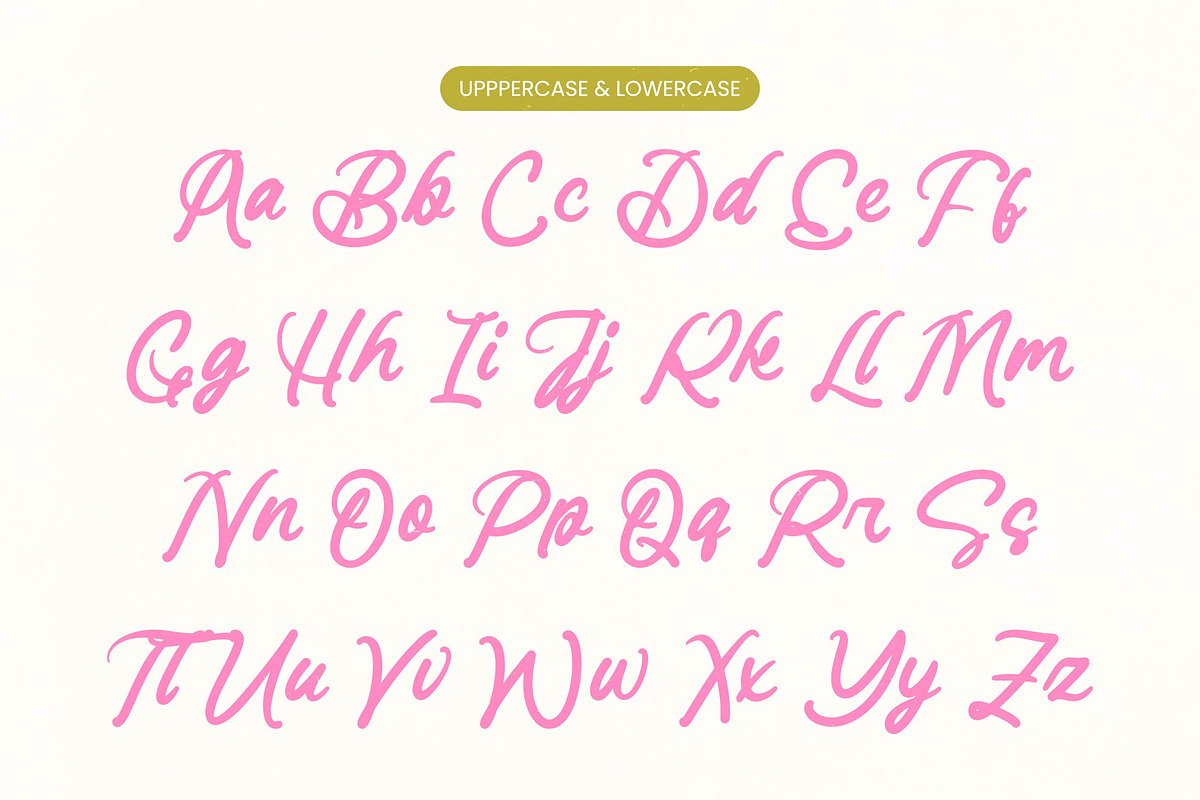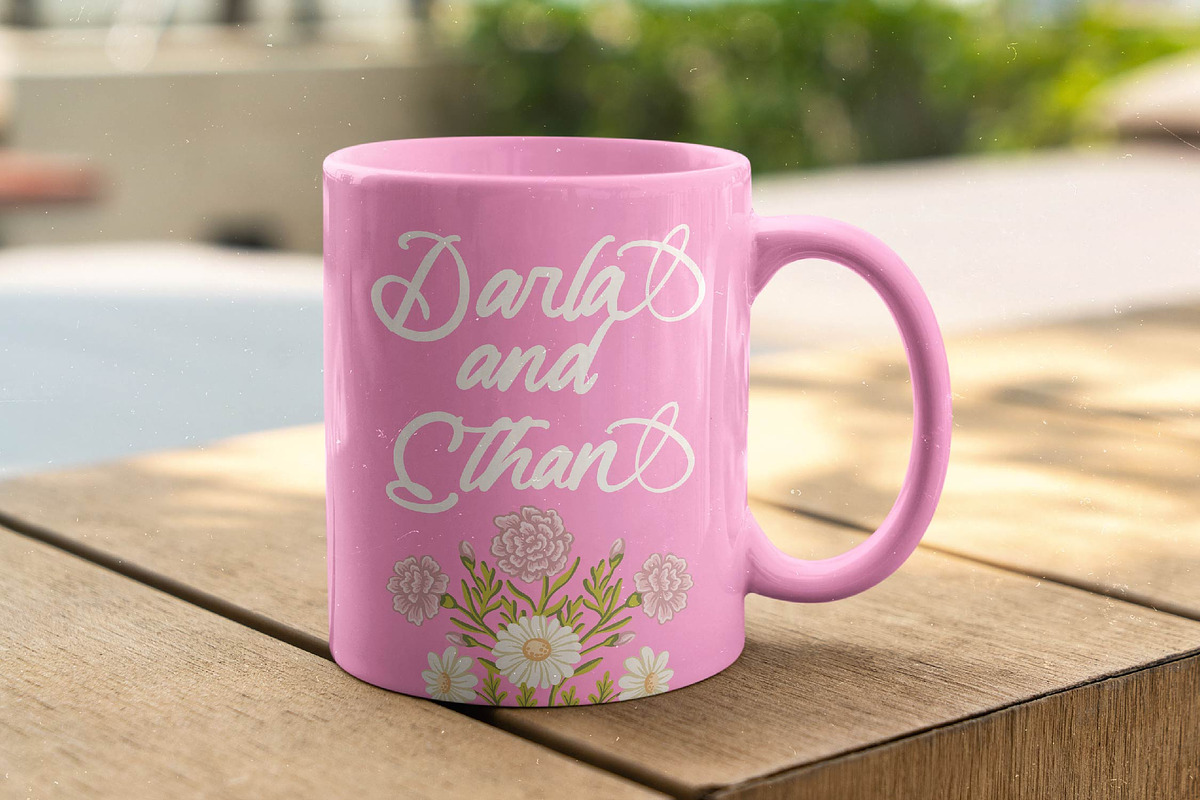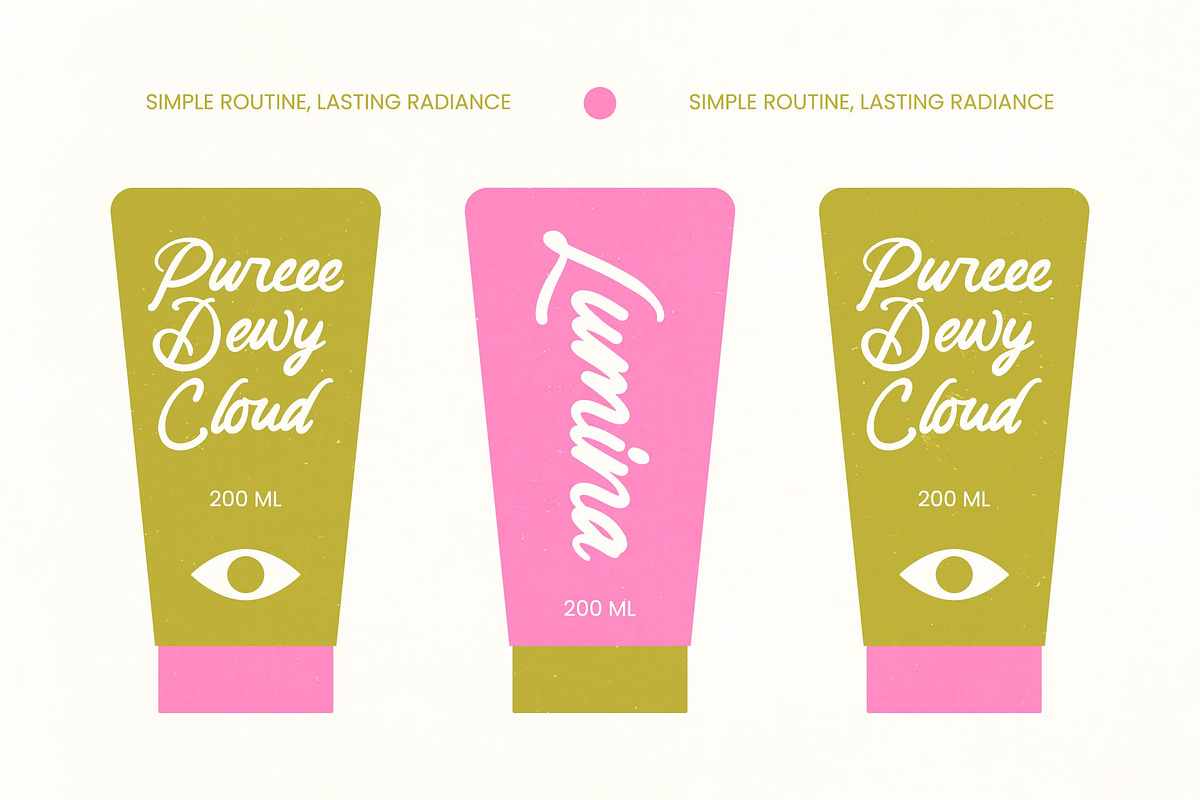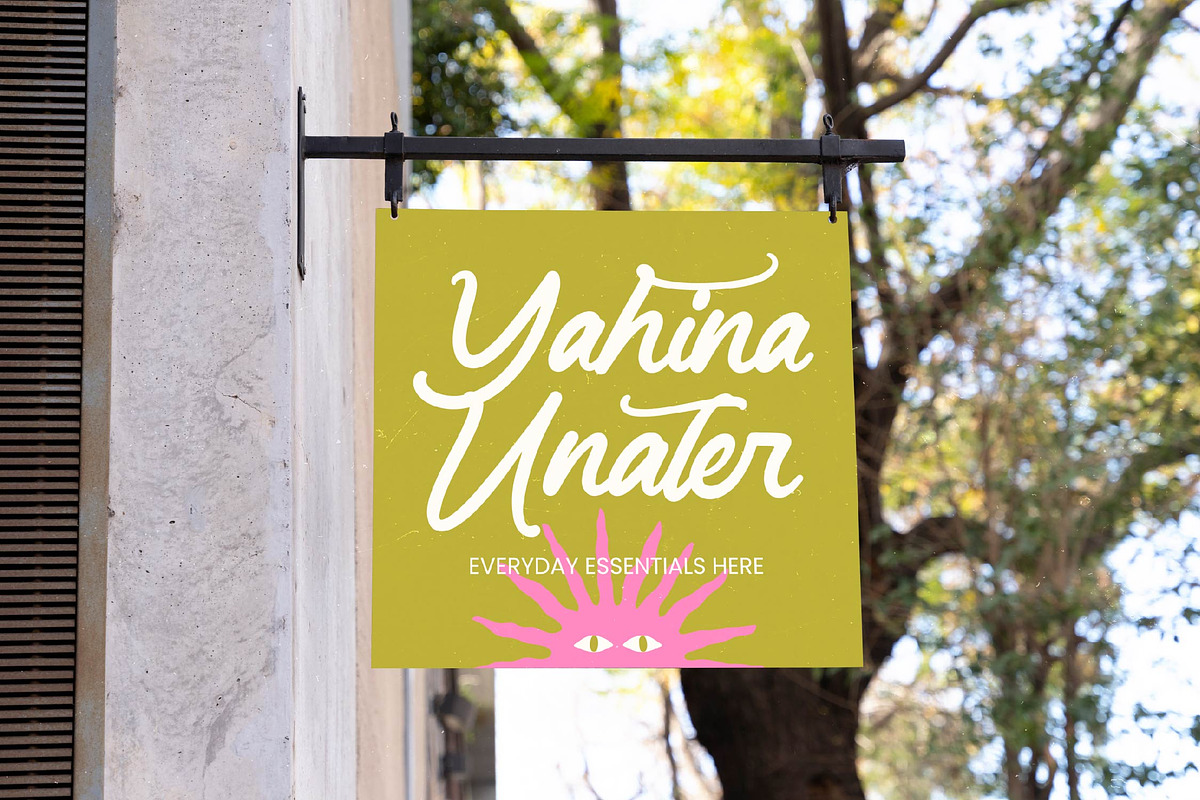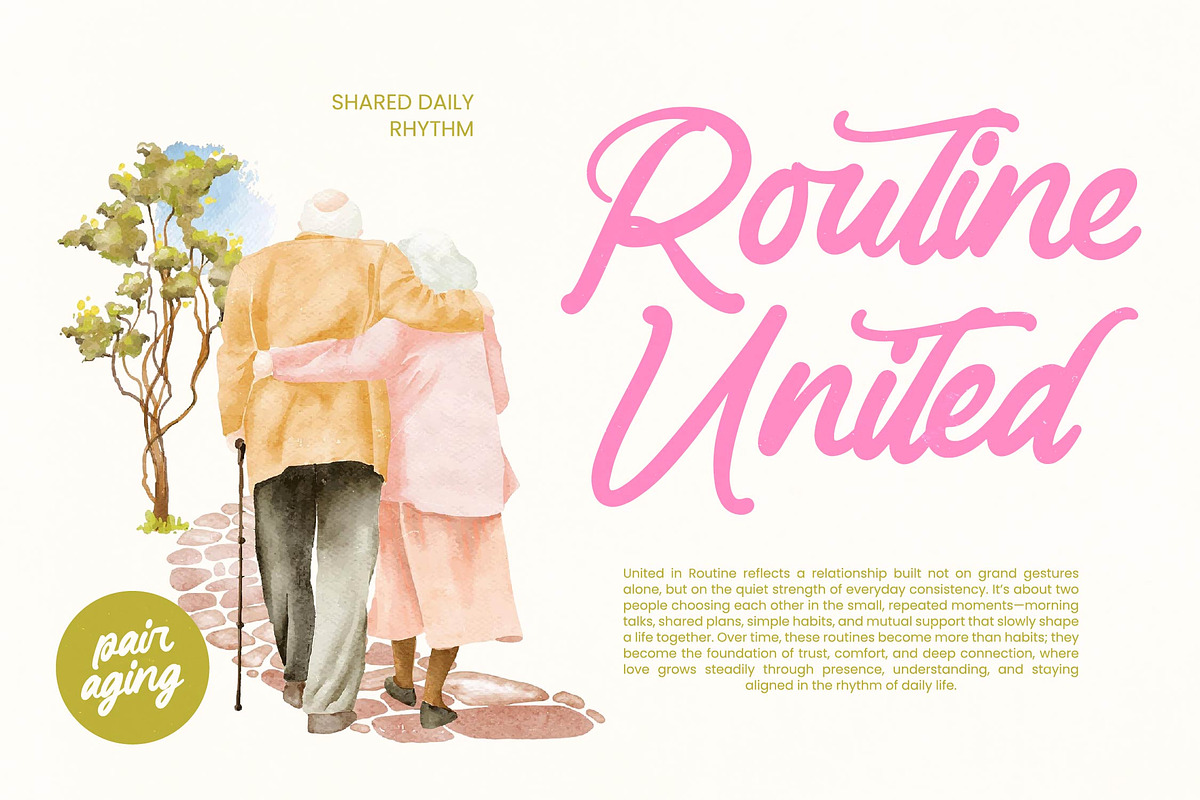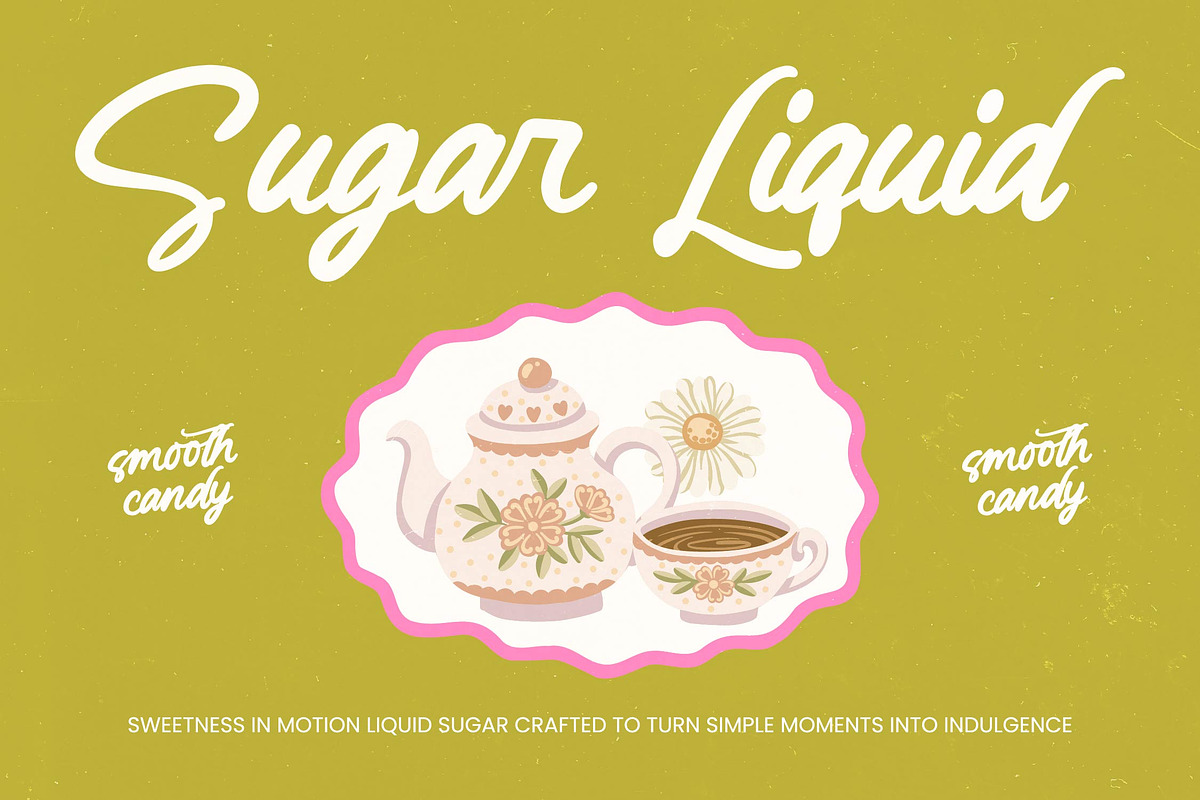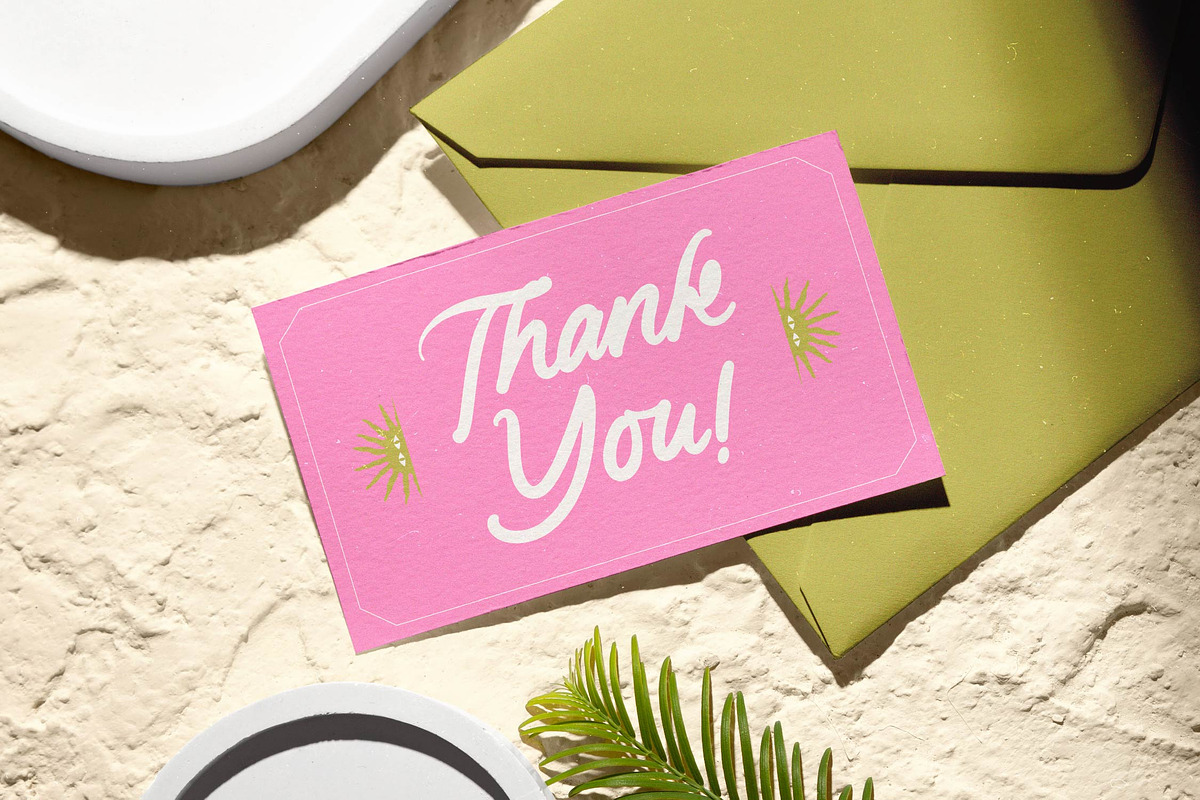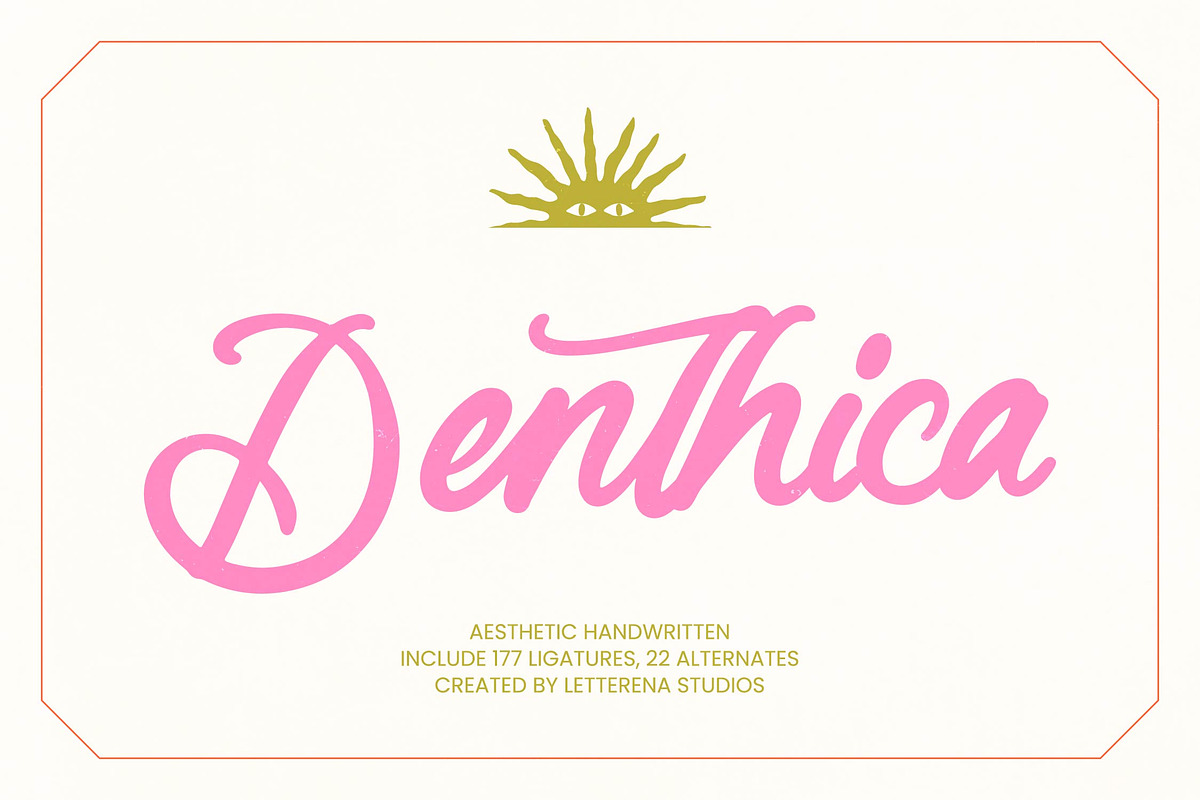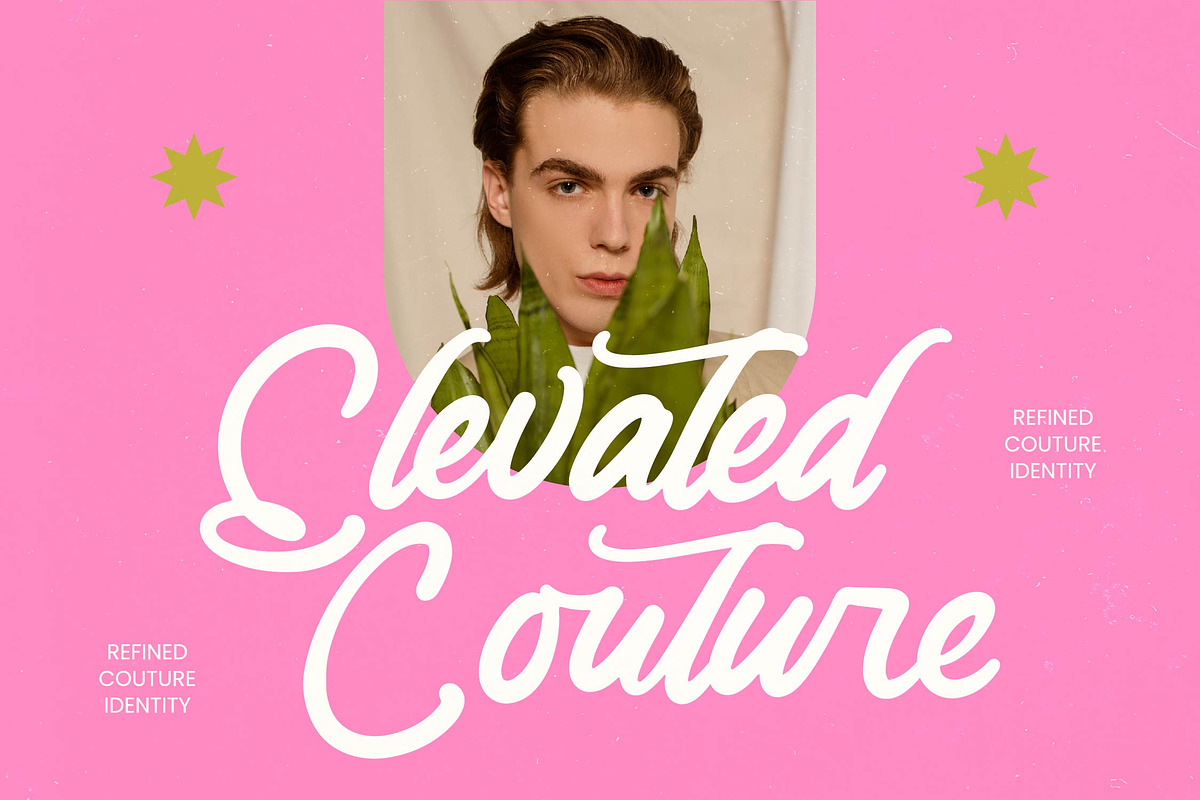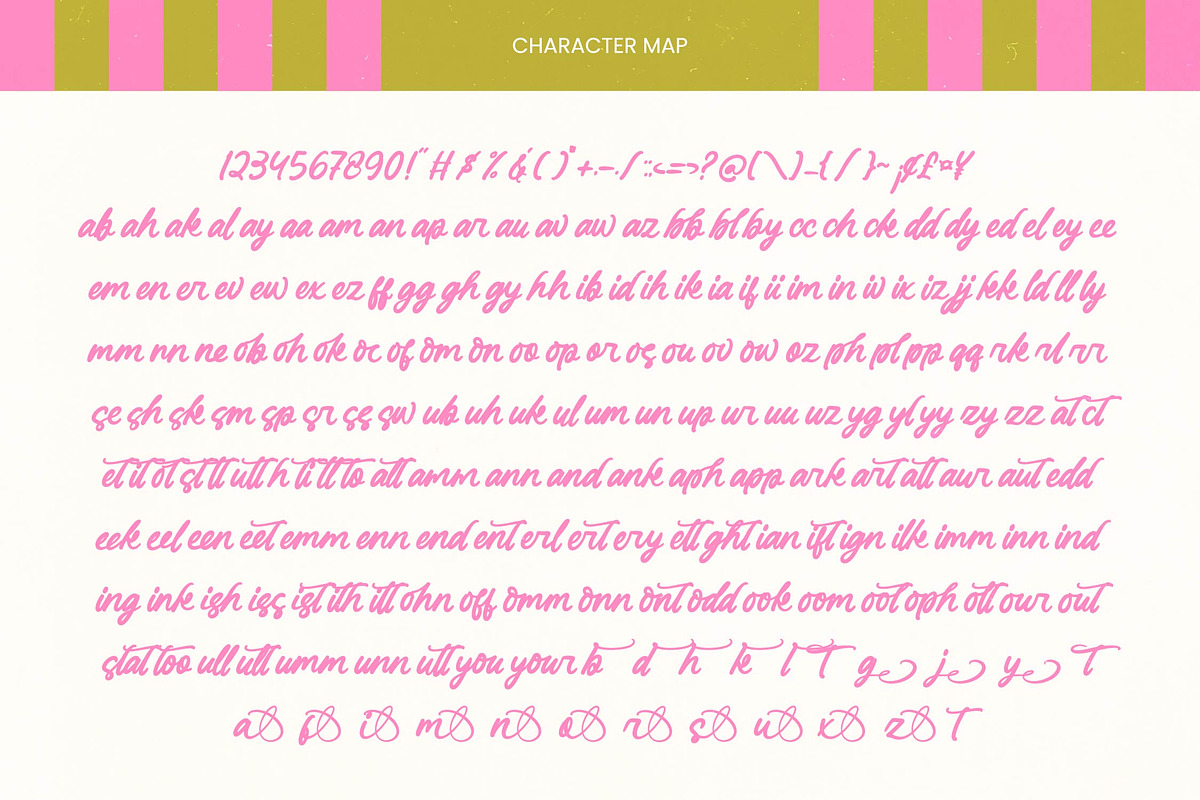
Denthica Aesthetic Handwritten
Denthica - Aesthetic Handwritten , Elevate your creative vision with the effortlessly chic aesthetic of Denthica - Aesthetic Handwritten. This premium script typeface captures a unique organic rhythm, blending modern calligraphy with a refined, hand-drawn texture. Its fluid strokes and elegant letterforms evoke a sense of personalized luxury, ensuring that every word carries a distinct, high-end personality perfect for contemporary designers seeking a bespoke visual appeal.
Bridge the gap between local charm and international professionalism with a typeface designed for a global audience. With its extensive multilingual support, Denthica - Aesthetic Handwritten adapts seamlessly across global markets, making it incredibly versatile for international projects. This expansive character set ensures that your message remains consistent and visually striking, regardless of the language or region of your target demographic, maximizing your brand reach.
Unlock limitless creative potential through an extensive collection of custom OpenType features that bring your text to life. Featuring 177 unique ligatures and 22 stylish alternates, Denthica - Aesthetic Handwritten allows you to craft tailor-made typography that feels truly handcrafted. The smooth transitions between characters create a harmonious flow that mimics authentic handwriting, providing a versatile toolkit for high-impact graphic design and sophisticated layouts.
Transform ordinary layouts into sophisticated visual statements with the ideal application of this versatile font. Denthica - Aesthetic Handwritten is perfect for luxury branding, editorial design, and high-end packaging, where a touch of human connection is required. Whether you are developing a premium fashion identity, elegant wedding stationery, or curated social media content, this typeface serves as the ultimate visual anchor for a modern and aesthetic brand experience.